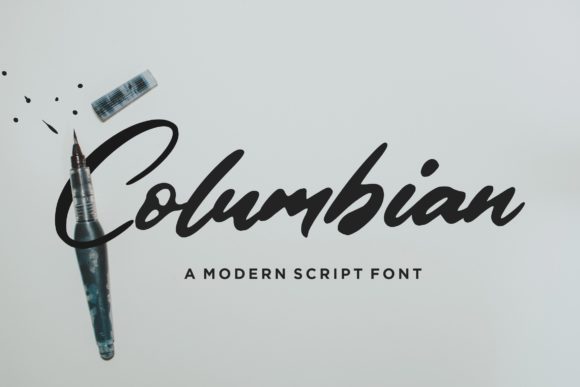
Prepare yourself to be mesmerized by Columbian Font, a calligraphic masterpiece that will transform your designs into breathtaking works of art. This exquisite script font, brought to life by the creative genius of Balpirick, is an embodiment of elegance and sophistication. With its delicate strokes and graceful curves, Columbian Font will add a touch of timeless beauty to any project.
Unleash your inner artist and explore the endless possibilities that await you with Columbian Font. Whether you're crafting wedding invitations, creating elegant logos, designing captivating posters, or adding a personal touch to your social media posts, this font will elevate your designs to new heights. Its versatility knows no bounds, making it the perfect choice for a wide range of creative endeavors.
With Columbian Font, you'll have the power to evoke emotions and create a lasting impression on your audience. Whether you're aiming for a classic, romantic look or a modern, edgy aesthetic, this font has the versatility to adapt seamlessly to your unique style. Experience the sheer joy of transforming your words into stunning visual creations that capture hearts and ignite imaginations.